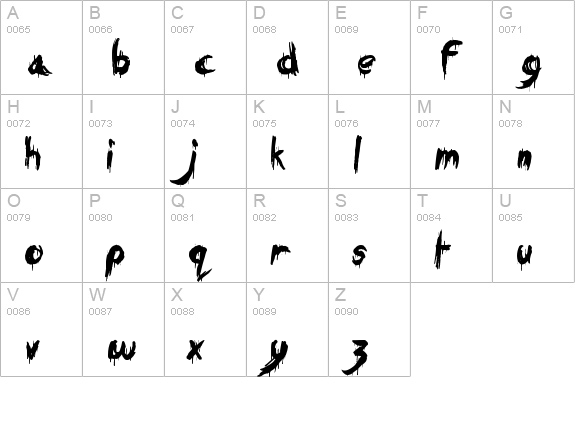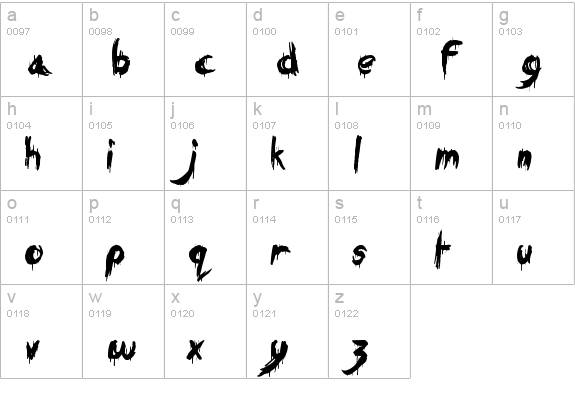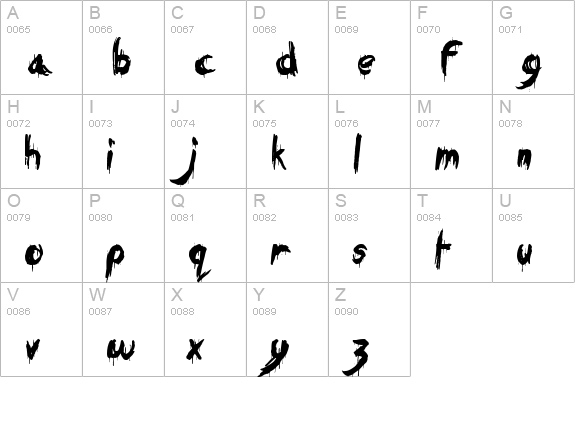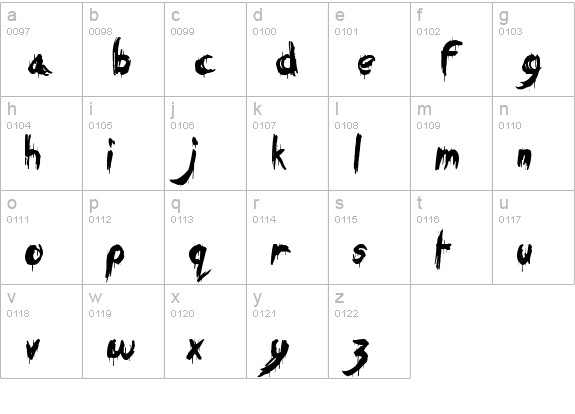
Smashing Pumpkins Font Details
The Smashing Pumpkins font is a captivating typeface that exudes a perfect balance between edginess and elegance. With its unique and bold letterforms, this font captures the essence of the iconic alternative rock band, embracing their distinctive style and attitude. Designed with meticulous attention to detail, the Smashing Pumpkins font is a versatile tool that can bring a touch of rock 'n' roll to any design project. Whether you're looking to create eye-catching posters, album covers, or website headers, this font will provide a captivating visual impact that commands attention. What sets the Smashing Pumpkins font apart is not only its striking aesthetics but also its accessibility. It is freely available to download at FontsMarket.com, ensuring that designers and enthusiasts can easily access and utilize this remarkable typeface without any constraints. The Smashing Pumpkins font possesses a dynamic energy that reflects the band's raw talent and creativity. Its bold strokes and unique character shapes convey a sense of rebellion and individuality, making it an ideal choice for any design that aims to break the mold and make a statement. Whether you're a fan of the Smashing Pumpkins or simply appreciate the power of expressive typography, this font is a must-have in your collection. Its versatility, combined with its free availability, makes it a valuable asset for both personal and commercial projects. Download the Smashing Pumpkins font today from FontsMarket.com, and embark on a design journey that merges the spirit of alternative rock with the power of typography. Unleash your creativity and let the Smashing Pumpkins font elevate your designs to new heights.